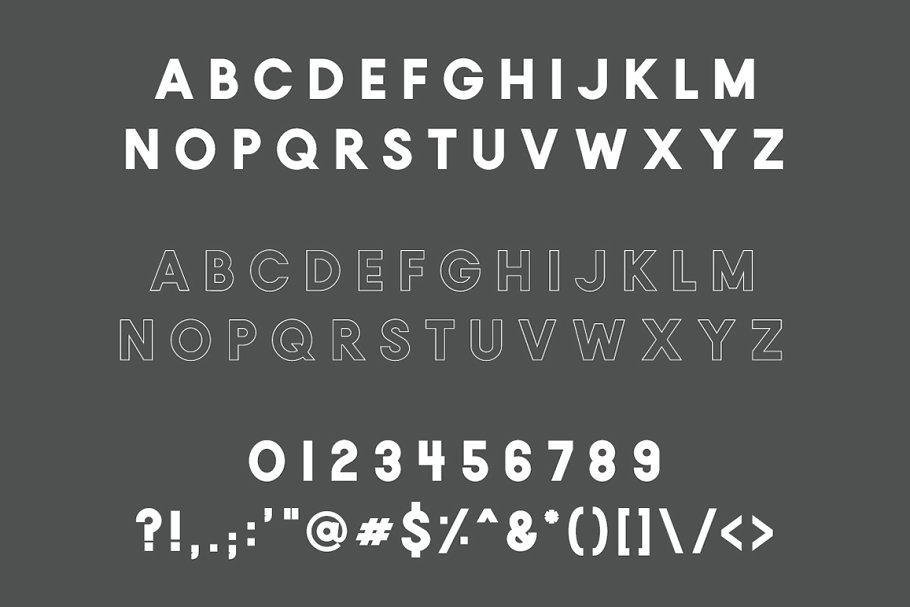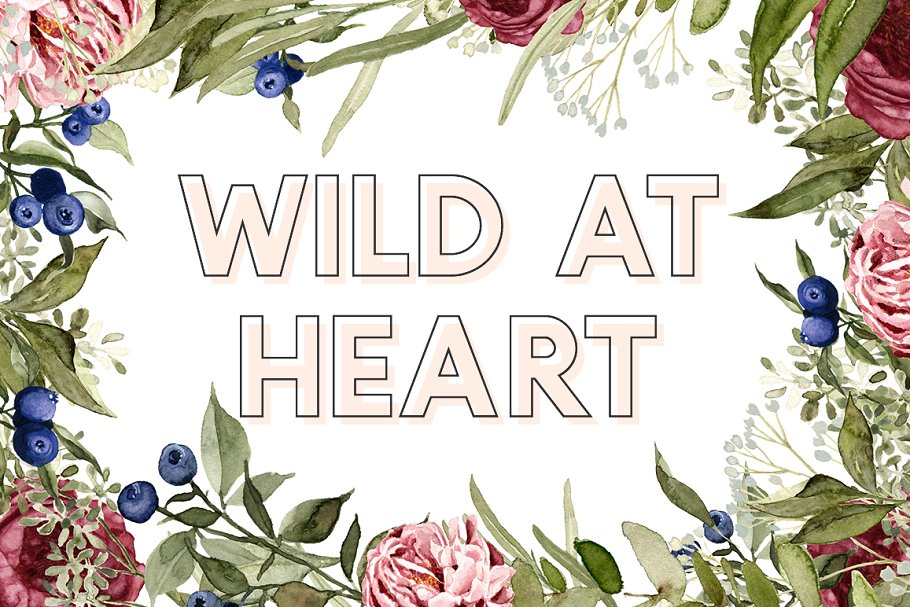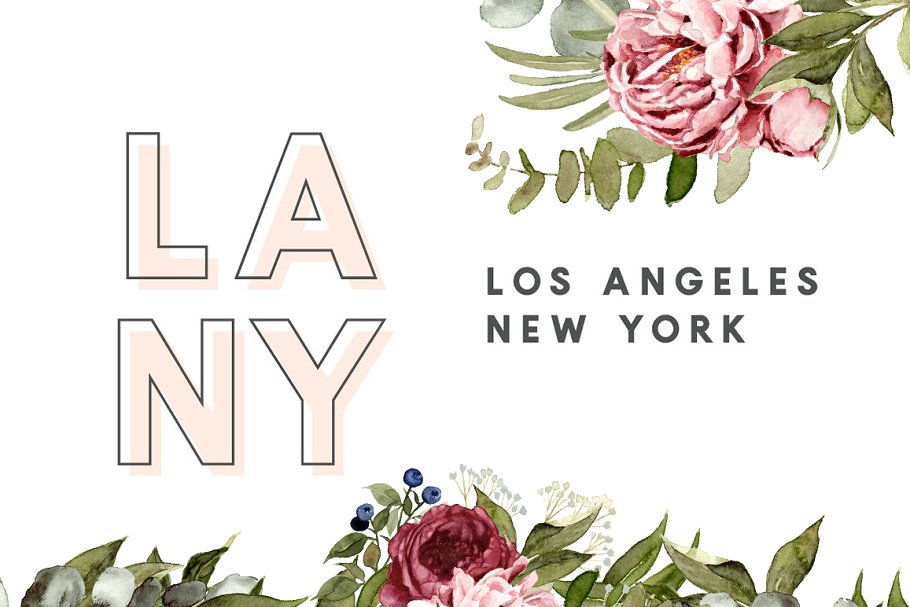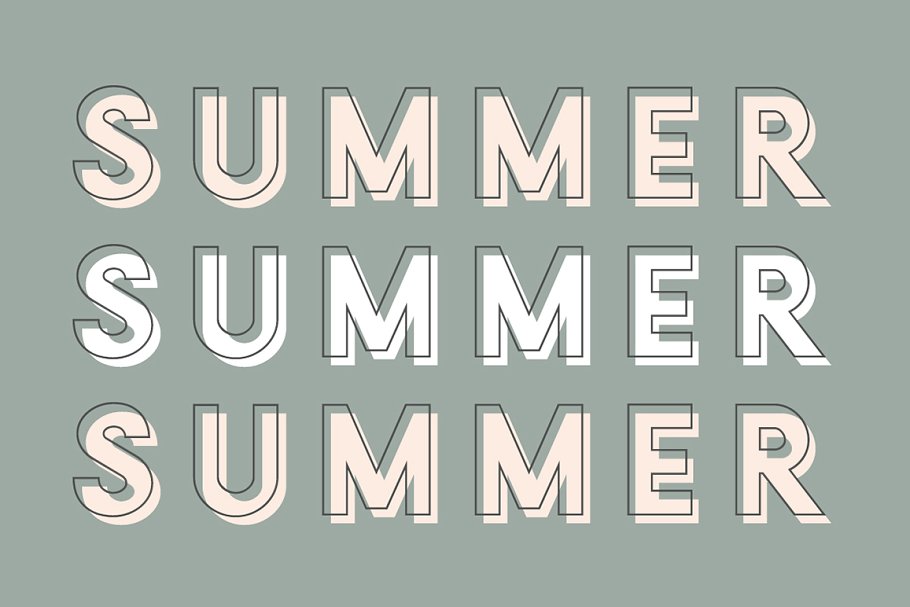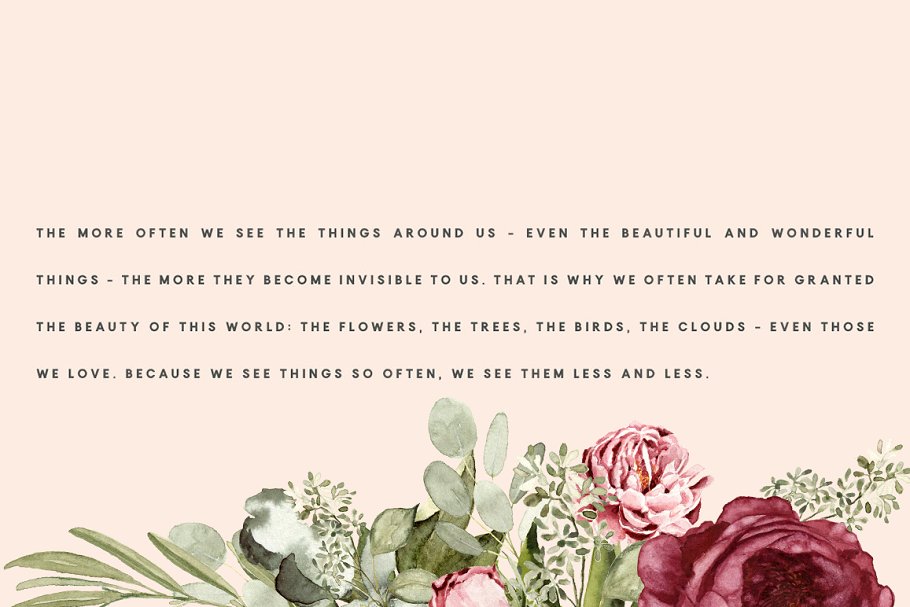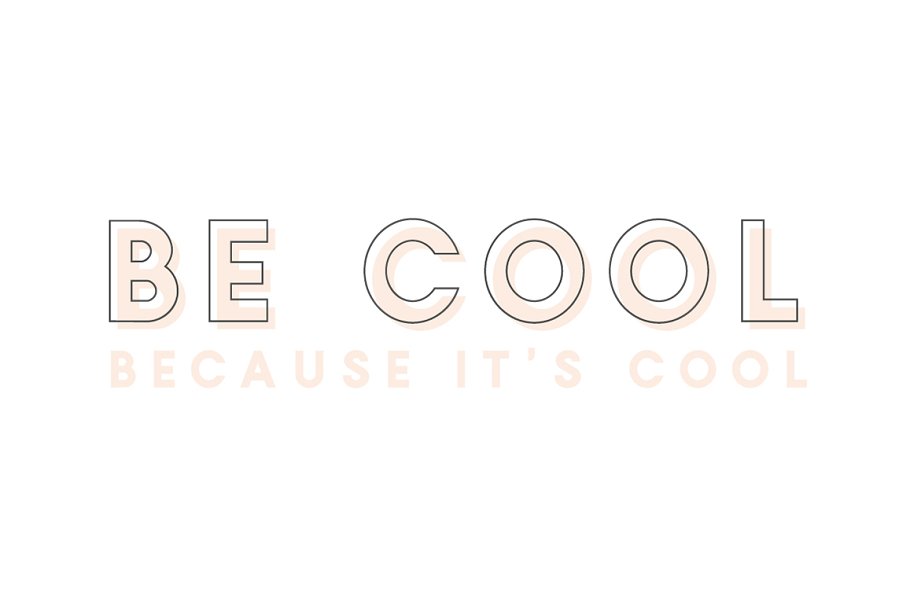
About the Tokyo A Designer Duo Font
NEW UPDATE: Now includes non-English characters and WOFF2 file formats!Need the floral elements for your next amazing project? You can snag them, a beautiful script font, logo templates and more in the San Clemente pack: https://creativemarket, com/jenwagnerco/2263395-San-Clemente-Script-Spring-FloralsTokyo is a bold sans serif font duo with both solid and outlined font files
The outline font automatically offsets, making it really simple to layer these fonts together perfectly, Simply duplicate your Regular layer and switch the setting to Outline, and the type will automatically offset up and to the right for you! If that’s too tricky, we’ve just added a Tokyo Merged style that combines the two for you!Perfect for displays, headers, invitations, save the dates, weddings, and so much more, Tokyo will become a playful staple in your font library!Check out some cool samples made with Tokyo here: http://www